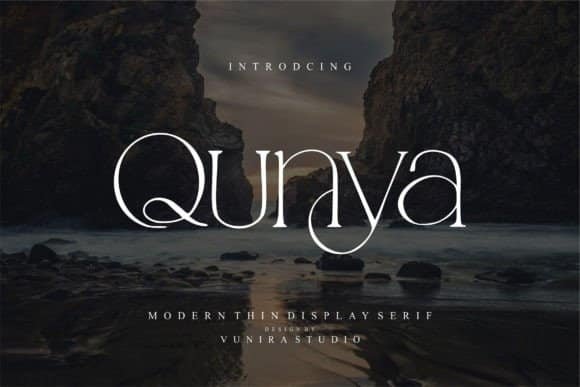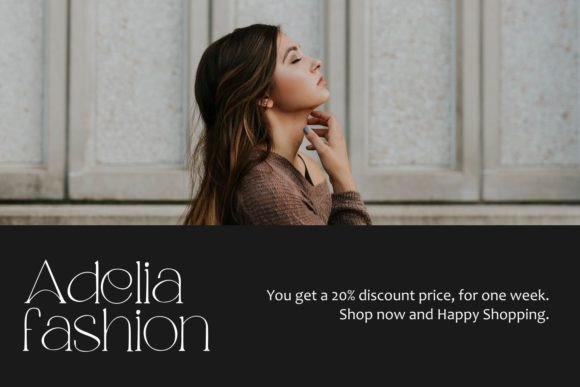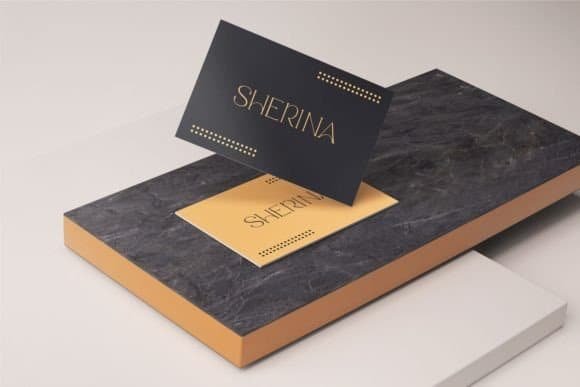
The Best Qunya Font
Qunya Font
Qunya Font  is a display serif with a calligraphy style. It will look beautiful on invitations, greeting cards, branding materials, business cards, quotes, posters, and more!